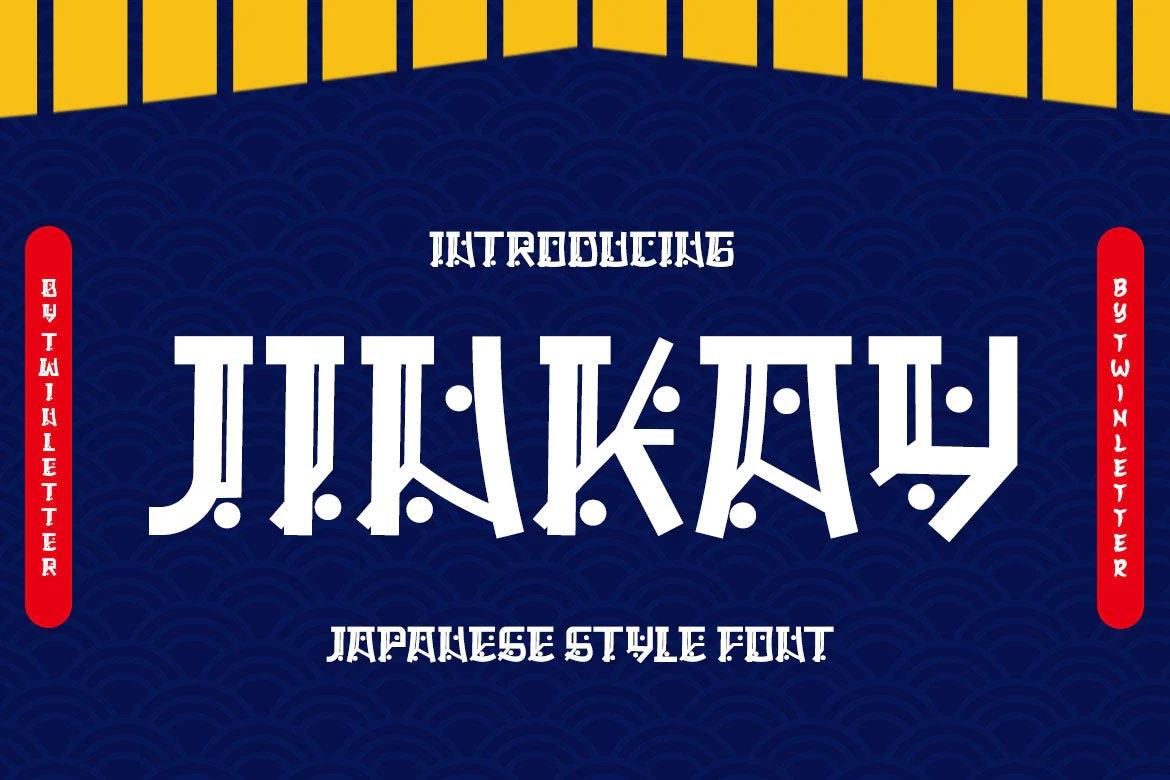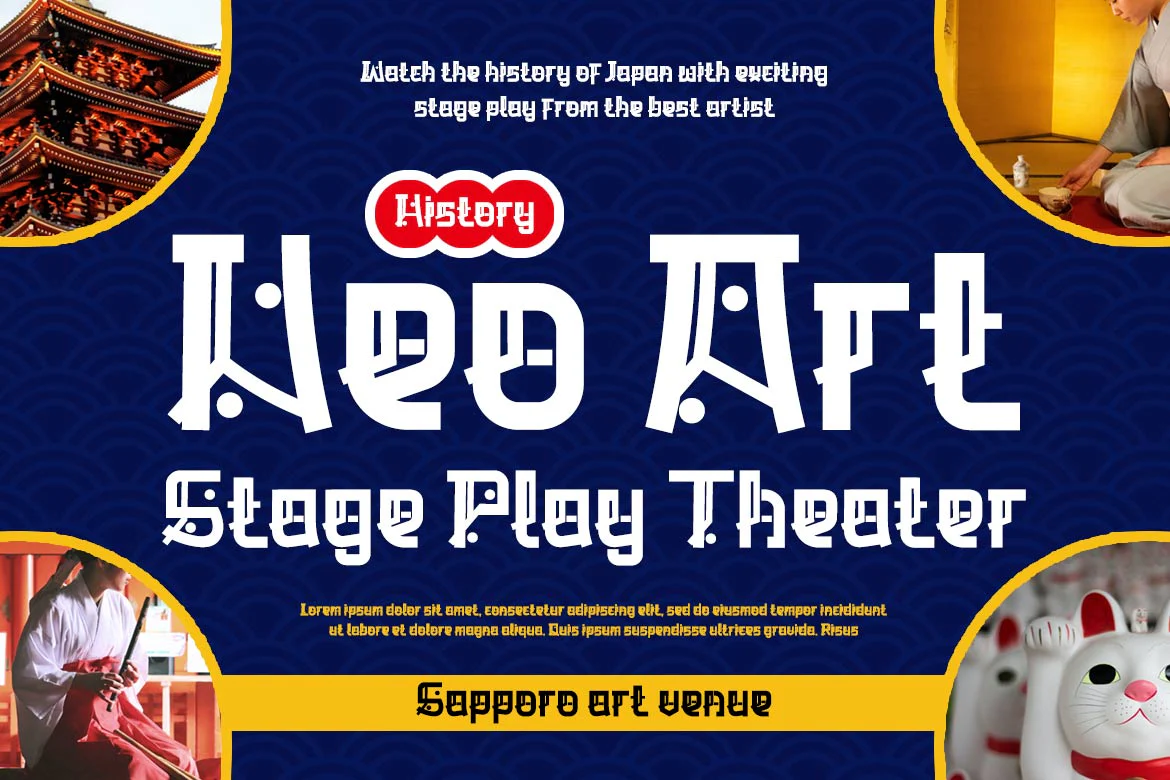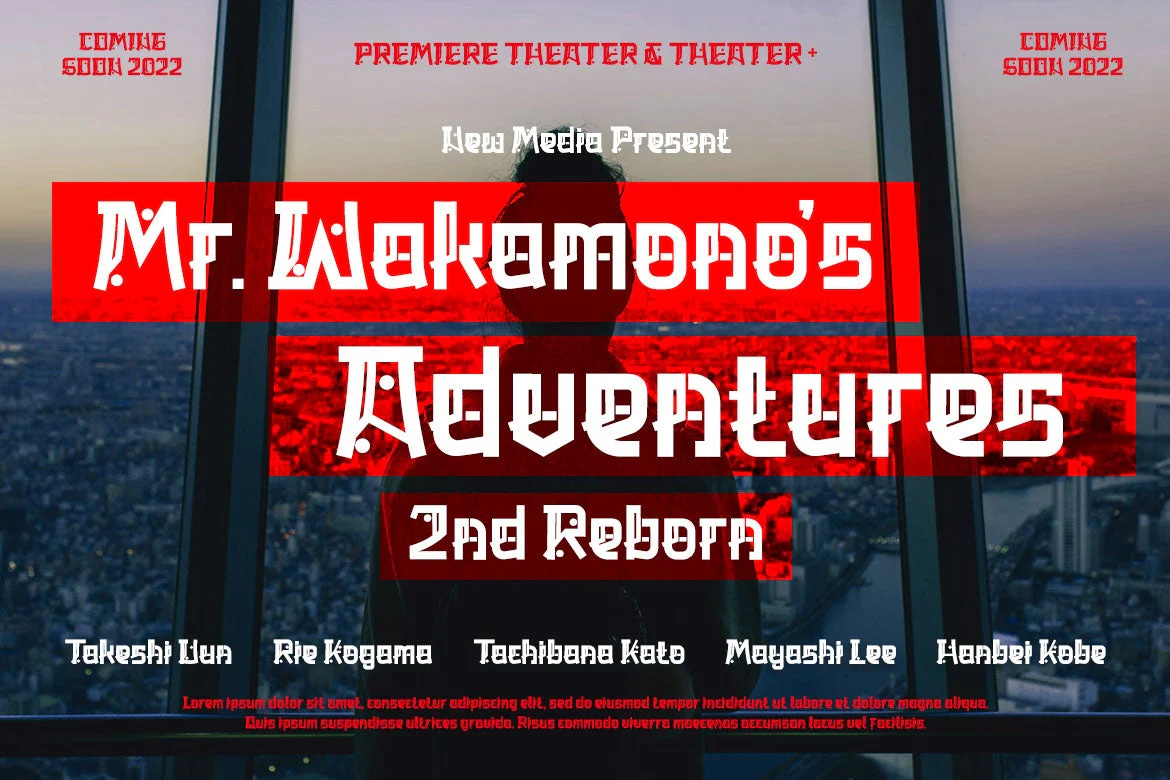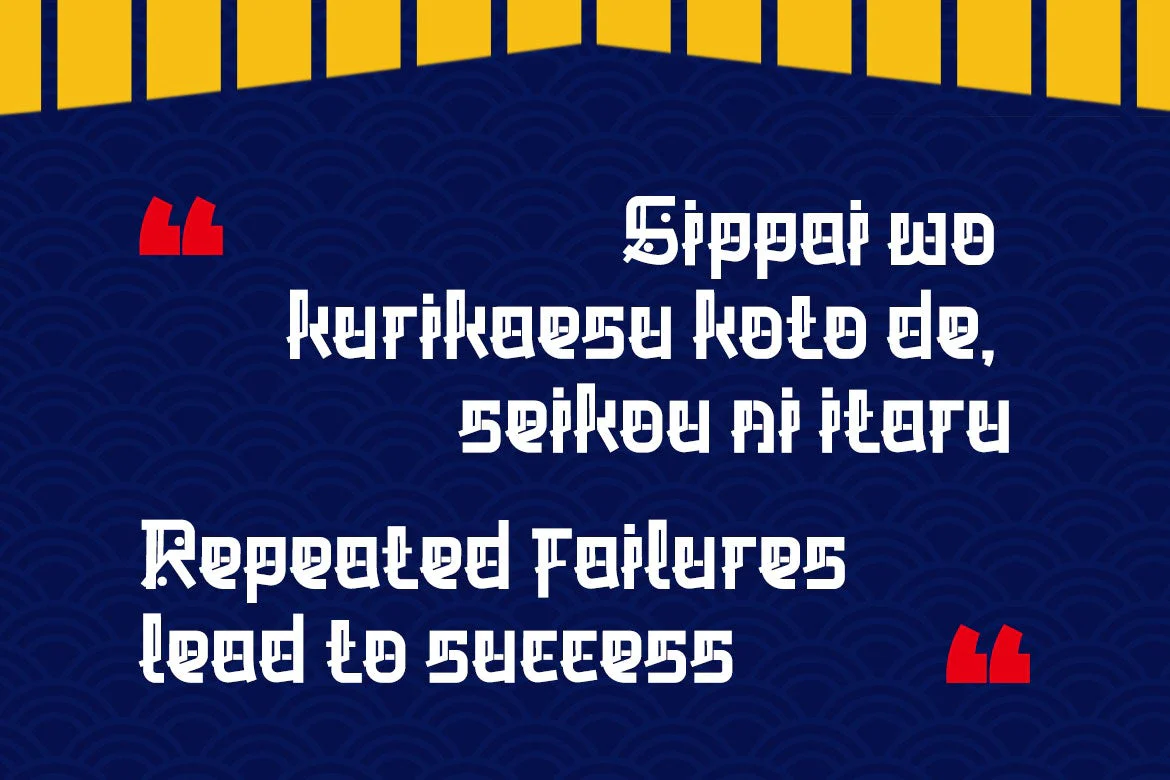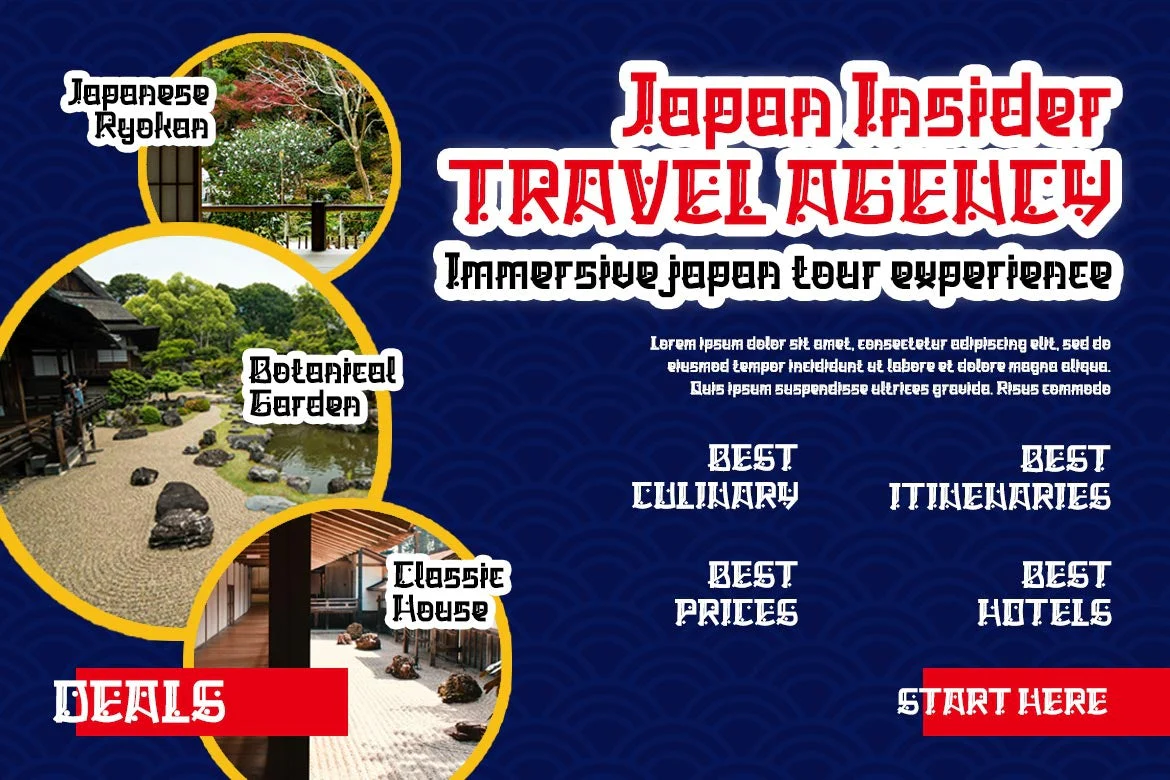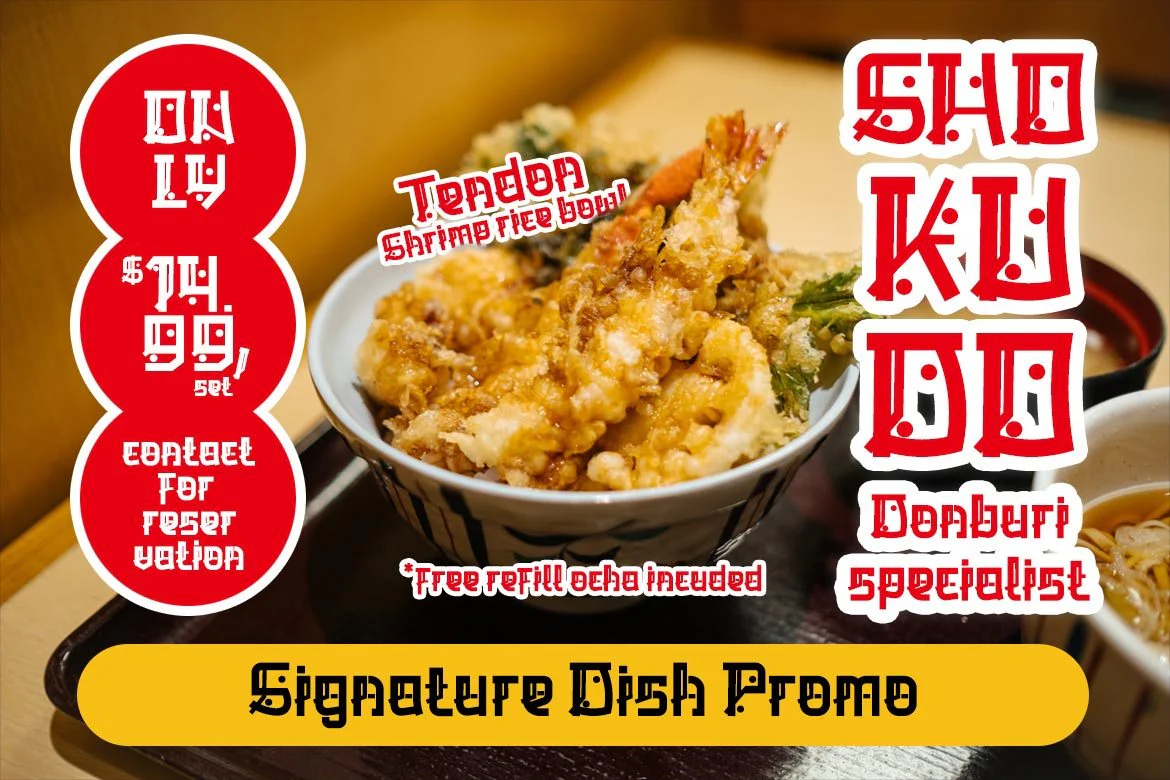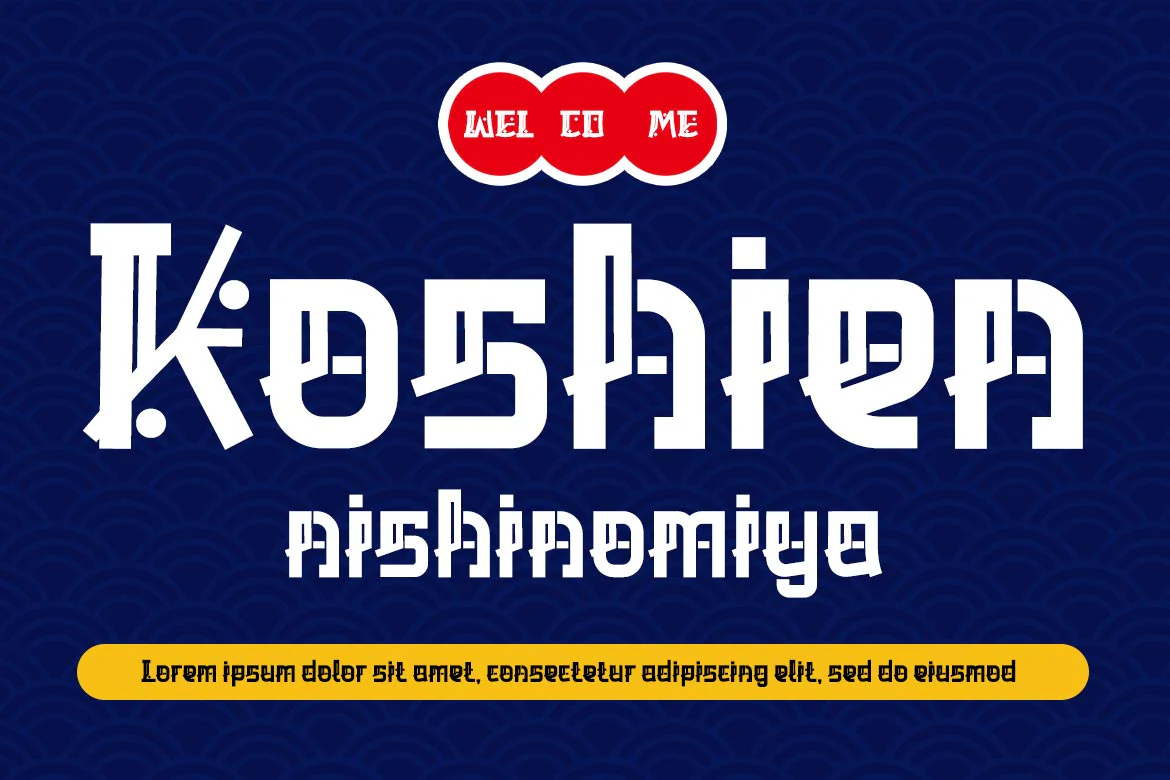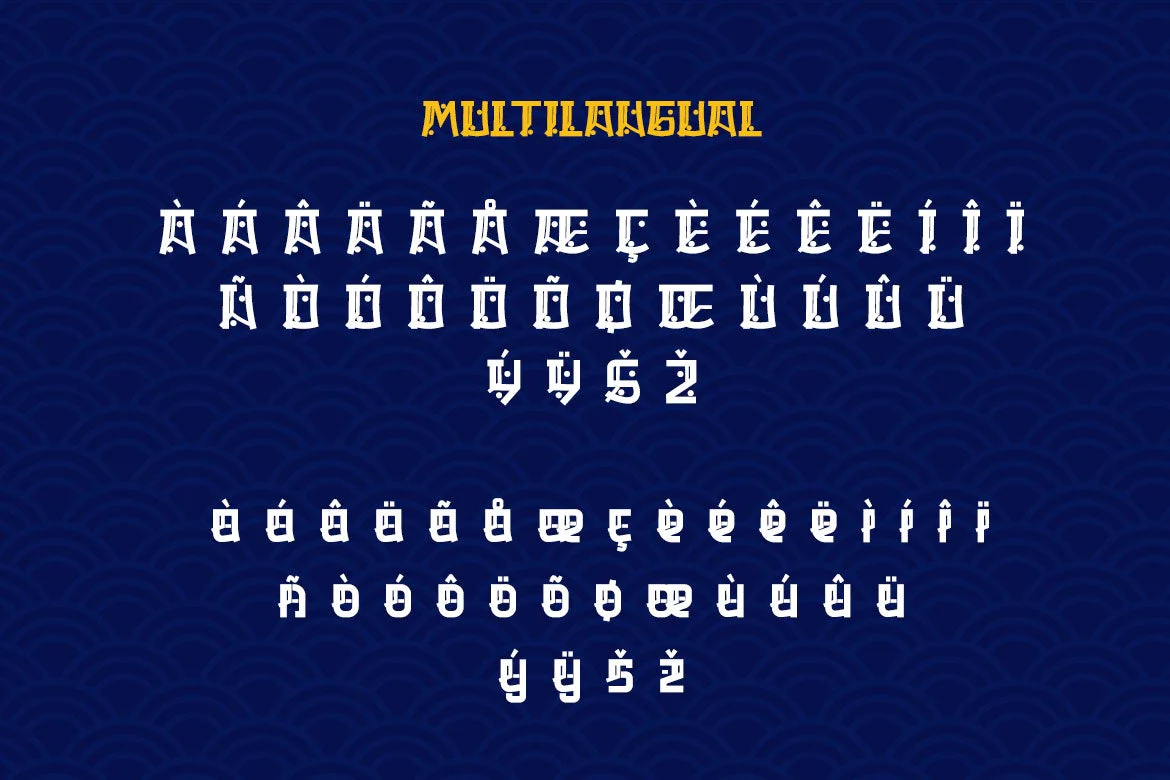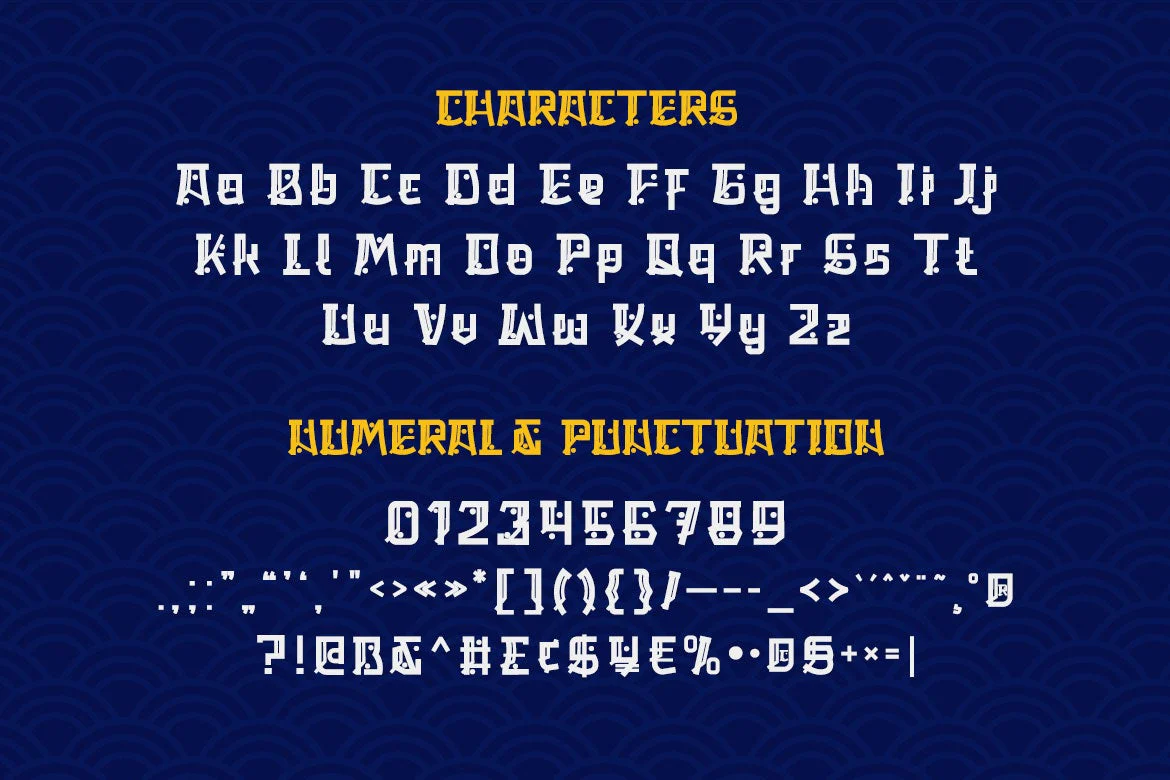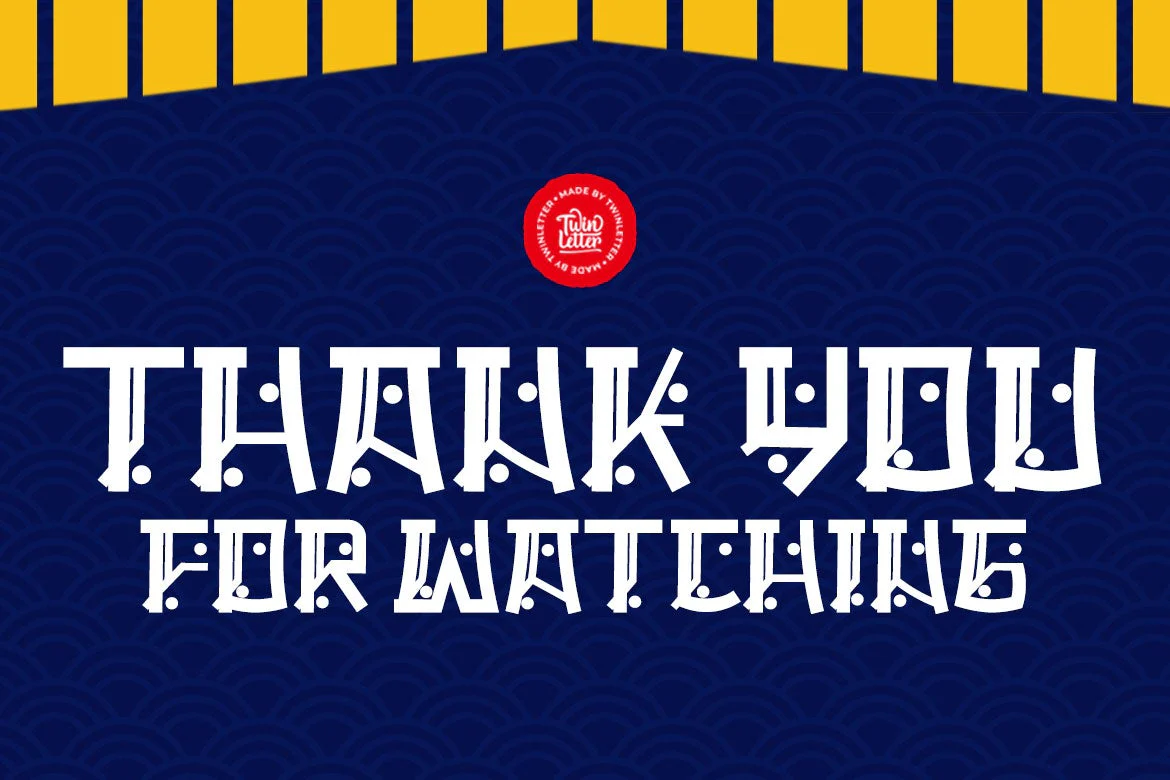
JINKAY Faux Japanese Font
We’ve created Jinkay, a display typeface with a Japanese style that’s similar to original.
Don’t be afraid to use this font in all of your special projects right now; imagine how beautiful and appealing your design will be; your project will instantly captivate all of your audience at first glance; they will easily remember the appearance of your project if you use this font, because it will be unique, different, and stand out from the crowd.
Logotypes, food banners, branding, brochure, posters, movie titles, book titles, quotes, and more may all benefit from this font.
Of course, using this font in your various design projects will make them excellent and outstanding; many viewers are drawn to the striking and unusual graphic display.
Start utilizing this typeface in your projects to make them stand out.
We’ve created Jinkay, a display typeface with a Japanese style that’s similar to original.
Don’t be afraid to use this font in all of your special projects right now; imagine how beautiful and appealing your design will be; your project will instantly captivate all of your audience at first glance; they will easily remember the appearance of your project if you use this font, because it will be unique, different, and stand out from the crowd.
Logotypes, food banners, branding, brochure, posters, movie titles, book titles, quotes, and more may all benefit from this font.
Of course, using this font in your various design projects will make them excellent and outstanding; many viewers are drawn to the striking and unusual graphic display.
Start utilizing this typeface in your projects to make them stand out.